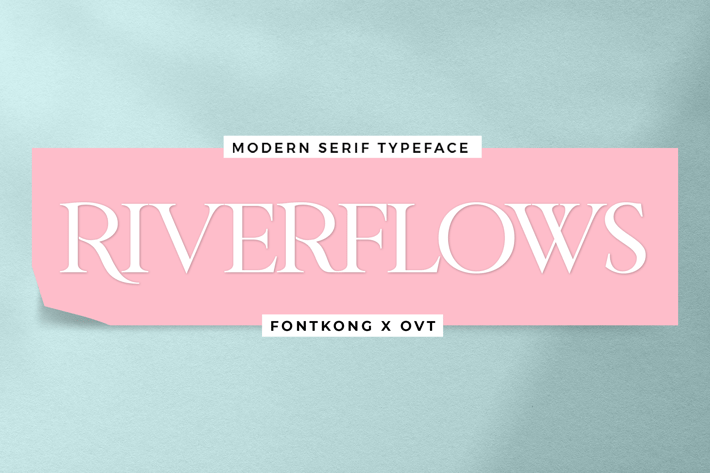
Riverflows - Modern Serif Typeface
Introducing "Riverflows," a modern serif typeface that captures the essence of graceful elegance. Designed with meticulous attention to detail, Riverflows features fluid curves and refined serifs that exude sophistication and charm.
Perfect for high-end branding, editorial design, and luxurious packaging, Riverflows offers a versatile range of weights and styles to meet diverse design needs. Its balanced structure and exceptional readability make it suitable for both display and body text, ensuring your message is conveyed with clarity and elegance.
Riverflows is more than just a typeface; it's a statement of style. Elevate your design projects with the timeless beauty of Riverflows.
Introducing "Riverflows," a modern serif typeface that captures the essence of graceful elegance. Designed with meticulous attention to detail, Riverflows features fluid curves and refined serifs that exude sophistication and charm.
Perfect for high-end branding, editorial design, and luxurious packaging, Riverflows offers a versatile range of weights and styles to meet diverse design needs. Its balanced structure and exceptional readability make it suitable for both display and body text, ensuring your message is conveyed with clarity and elegance.
Riverflows is more than just a typeface; it's a statement of style. Elevate your design projects with the timeless beauty of Riverflows.